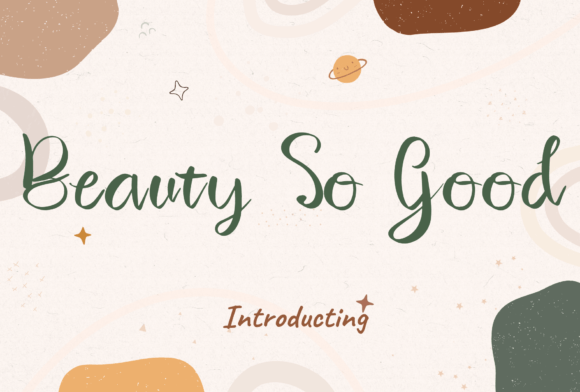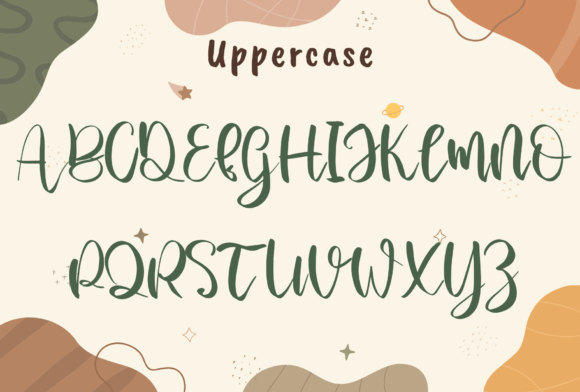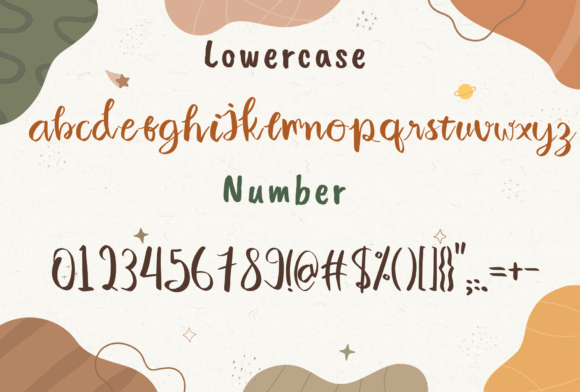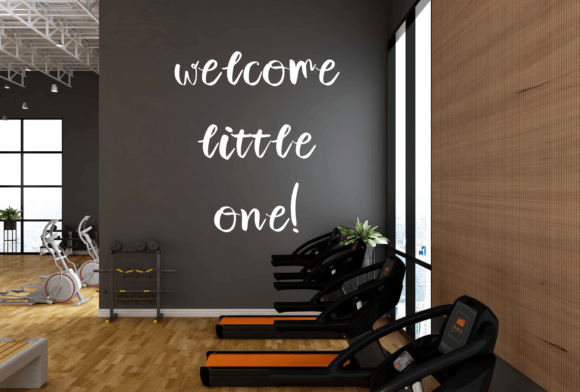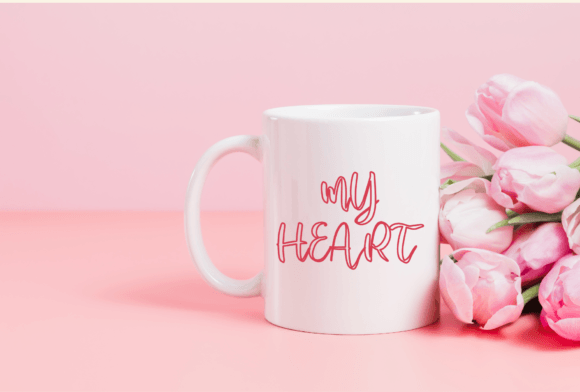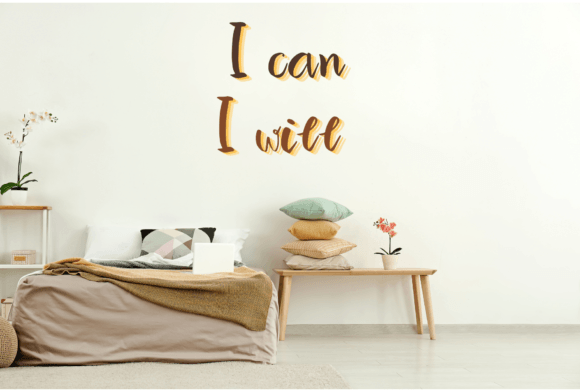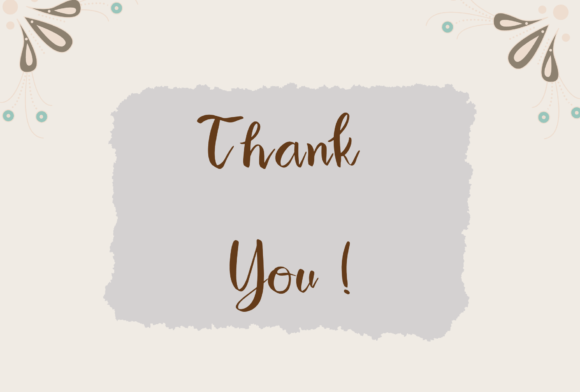
Beauty so Good Font
A Cute and Elegant Script Typeface
Beauty So Good is a delightful script font created to add elegance and charm to any design. With its smooth cursive characters and graceful flow, this font feels warm, inviting, and stylish. Whether you’re designing presentations, event invitations, or social media graphics, Beauty So Good brings a polished look that makes your work stand out.
Its cute and modern style makes it a versatile choice for many creative projects.
Perfect for Invitations and Presentations
Beauty So Good is an ideal font for invitations of all kinds. Its beautiful script letters set the right tone for weddings, birthdays, baby showers, and other celebrations. Use it for names, headings, or even small details to create an elegant, cohesive look that feels personal and thoughtful.
This font also shines in presentations and educational materials. The friendly curves make your content approachable and easy to follow while still looking professional. Whether you’re creating slides, workbooks, or e-learning resources, Beauty So Good ensures your text is clear and visually appealing.
Great for Branding and Digital Design
Beauty So Good is perfect for logos, social media posts, and branding materials. Its sophisticated style feels both timeless and fresh, helping your brand stand out. You can use it for headlines, product packaging, or promotional materials to create a consistent, memorable look.
Pair Beauty So Good with a simple sans-serif font to keep your layouts clean and modern. This combination works well for websites, business cards, and marketing materials where clarity and beauty need to work hand in hand.
Clear, Stylish, and Readable
Even with its cursive details, Beauty So Good stays legible in any size. Balanced spacing and clean connections between letters ensure your message looks polished and professional.
Use larger sizes for headlines or main titles to make the most of the script’s elegant curves. For smaller text, adjust spacing slightly to maintain readability without losing style.
Tips for Stunning Designs
To help Beauty So Good stand out, use light backgrounds and soft colors. Warm tones like ivory, blush, and pastel shades enhance the script’s sweet and delicate feel.
Consider adding small decorative elements like borders or icons to complement the handwritten look.
Keep plenty of white space around your text to help the design feel fresh and uncluttered.
Beauty So Good is perfect for designs that should feel elegant, personal, and inviting.
A Must-Have Font for Your Creative Toolkit
Beauty So Good isn’t just another script font—it’s a creative asset that helps your designs look professional and memorable. From event invitations and presentations to branding and digital content, this font adapts beautifully and adds a refined finish to every project.
Adding Beauty So Good to your font library means you’ll always have a cute, versatile option ready to use. Whether you’re designing for clients, yourself, or loved ones, this font makes every idea feel special and unique.